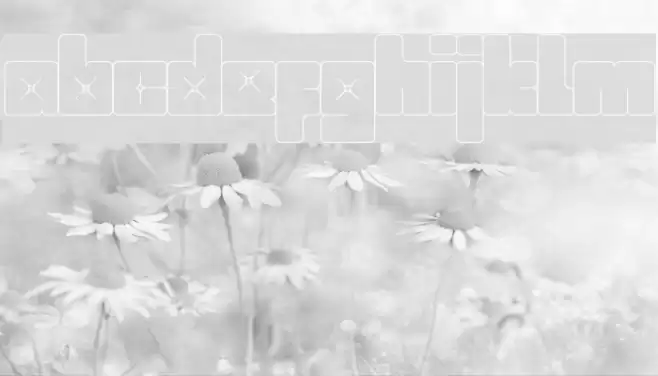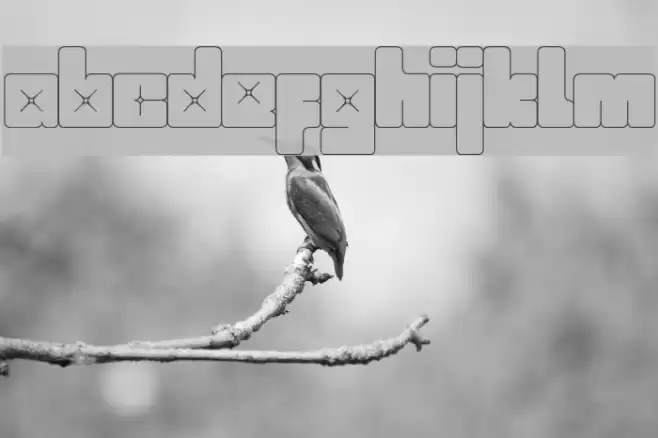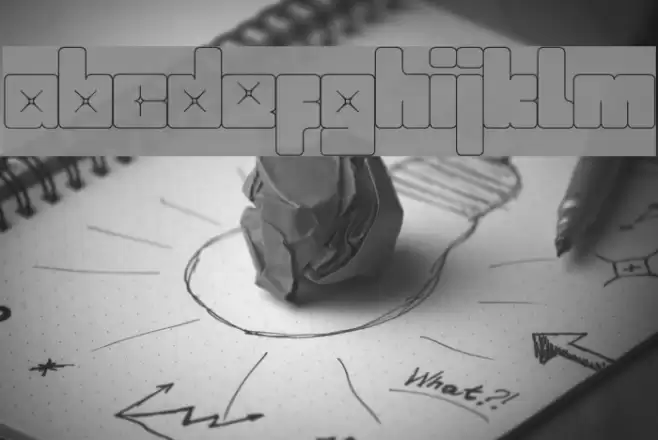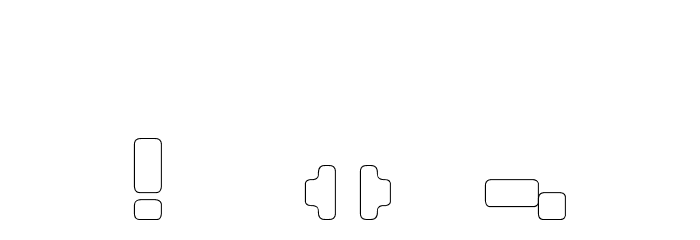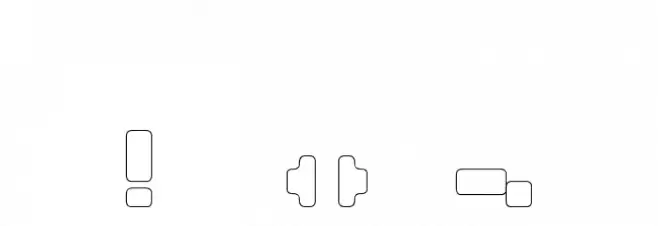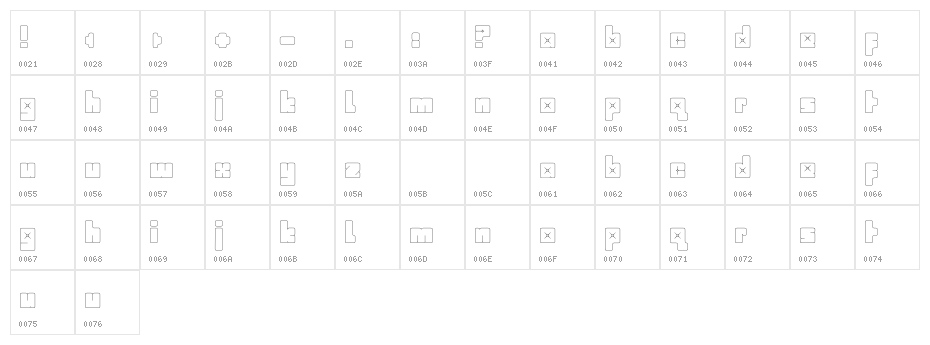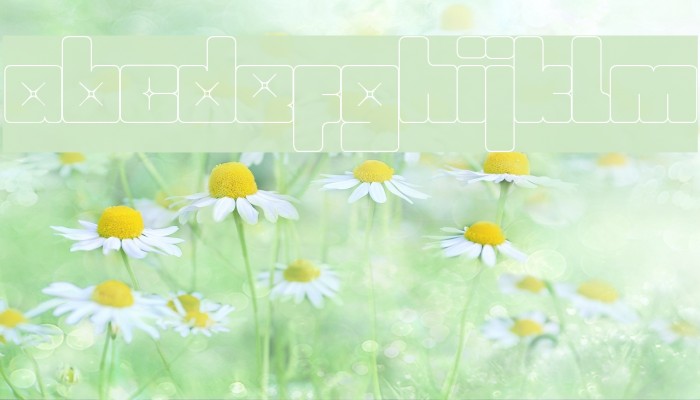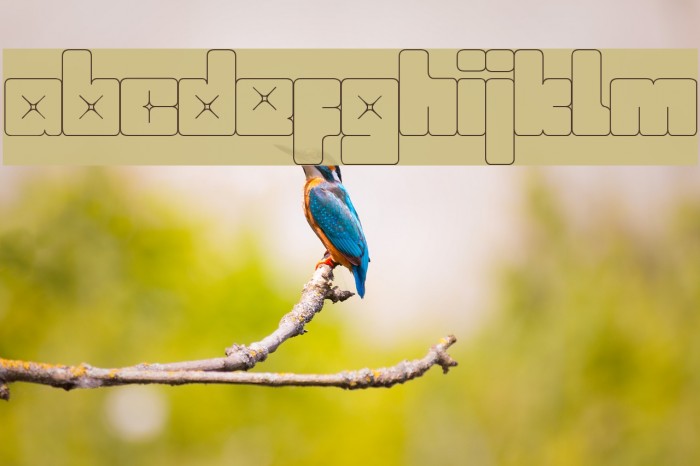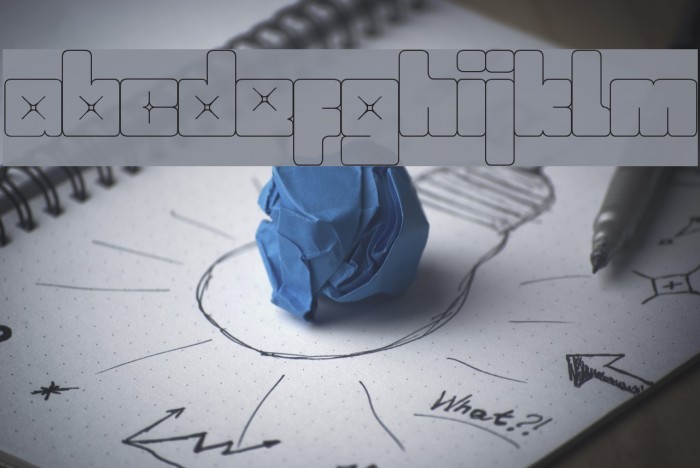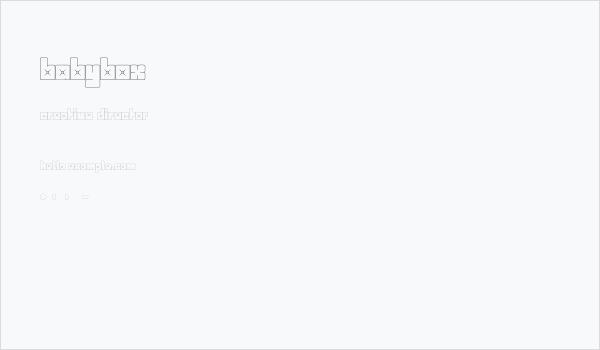
This font features a playful and geometric design with rounded edges and a blocky structure. Each character is enclosed within a square-like shape, giving it a unique, puzzle-like appearance. The letters are uniformly sized, creating a cohesive look across both uppercase and lowercase alphabets. The font includes distinct special characters that maintain the same playful style. Its bold and chunky form makes it stand out, while the consistent line thickness throughout the characters ensures readability. The font's whimsical and modern aesthetic makes it suitable for creative and informal applications.
A playful, geometric font with rounded edges and blocky shapes from Uncategorized fonts.
- Proposed Projects: Ideal for children's books, toy packaging, playful branding, and creative posters.